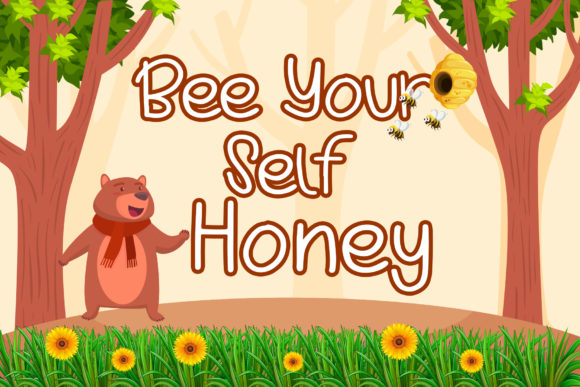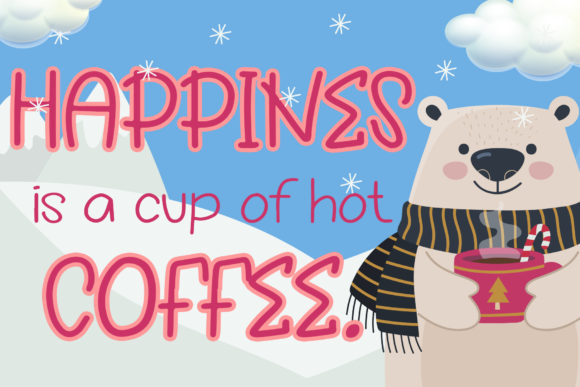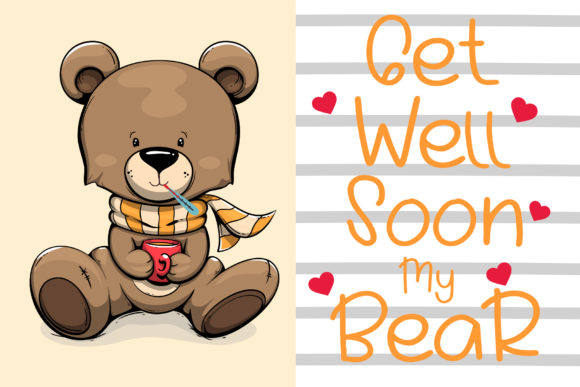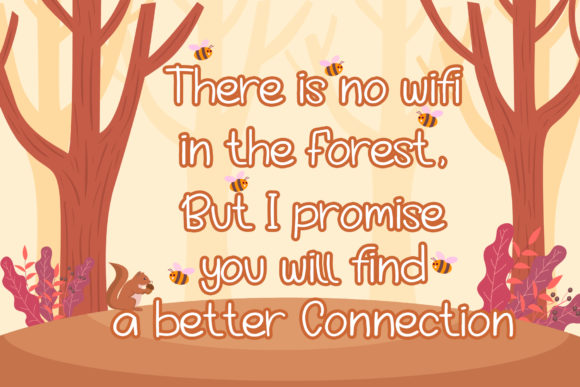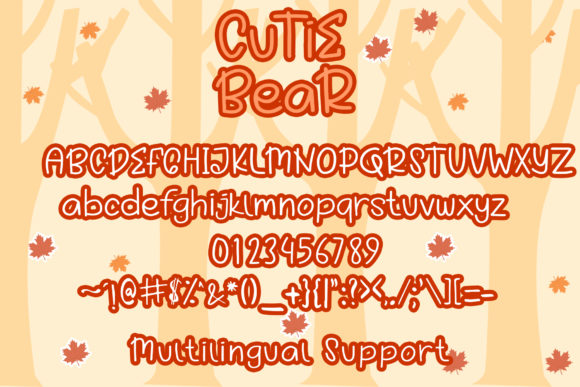
Introduction to Cutie Bear Font
Have you ever been working on a creative project and stumbled upon the perfect design element that brings your vision to life? For designers, finding that elusive font can be a game-changer. It’s the difference between a good design and a great one. For those who have been searching for a font that exudes warmth and friendliness, we’re excited to introduce you to the Cutie Bear Font.
This high-quality, handwritten font is a design resource that’s sure to become a staple in your toolkit. With its natural and unique style, it’s incredibly versatile and can be used in a wide range of creative projects, from digital art to print materials. Whether you’re working on a design project with a transparent background or need a font that adds a touch of whimsy to your design, the Cutie Bear Font is an excellent choice.
Key Features of Cutie Bear Font
- High-quality design resource for creative projects, offering a unique and adorable style.
- Features a transparent background, allowing for easy customization and integration into various designs.
- Available in 5 font sizes, ranging from 12pt to 72pt, to suit various design needs.
- Designed with a high resolution of 300 DPI, ensuring crisp and clear text output.
- Perfect for use in children’s books, greeting cards, and other creative projects that require a cute and playful touch.
Honest Review: Cutie Bear Font
As a designer, I’m always on the lookout for high-quality design resources that can elevate my creative projects. Recently, I had the chance to try out the Cutie Bear Font, and I’m excited to share my honest review with you.
- ✨ Unique and playful design style: The Cutie Bear Font has a charming, whimsical feel that’s perfect for projects that need a touch of personality.
- ✨ Transparent background: This feature makes it easy to layer the font over different backgrounds without worrying about unwanted colors.
- ⚠️ Limited font sizes: While the font is cute at smaller sizes, it can become difficult to read at larger sizes.
- ⚠️ Not suitable for formal projects: The playful design style may not be suitable for formal or professional projects, such as business reports or academic papers.
Overall, I think the Cutie Bear Font is a great addition to any designer’s toolkit. While it has some limitations, its unique design style and transparent background make it a valuable resource for creative projects. If you’re looking for a fun and playful font for your next project, I’d definitely recommend giving it a try.
Use the Cutie Bear Font in conjunction with other high quality design elements to create a visually appealing design. Experiment with different font sizes, colors, and alignments to find the perfect balance for your creative project.
The Cutie Bear Font is perfect for designing children’s products, party invitations, and social media graphics. Its playful and whimsical design makes it an ideal choice for any creative project that requires a touch of cuteness and charm.